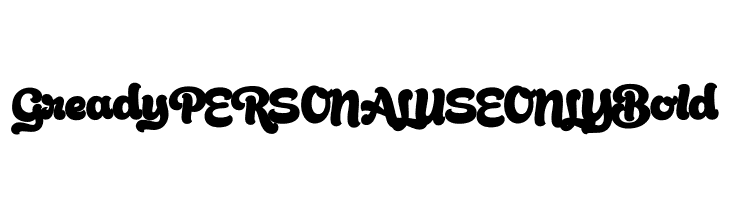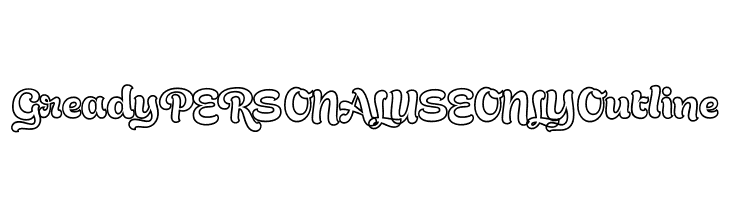
An elegant and decorative script font with ornate letterforms.
A playful and bold script font with a whimsical, hand-drawn style.
A bold, playful script font with rounded, flowing characters.
A playful, bold outline font with whimsical curves and rounded edges.
A bold, playful font with rounded, bubbly strokes and a whimsical style.
A dynamic and expressive handwritten font with fluid, cursive strokes.
An elegant and bold script font with ornate, flowing letterforms.
An elegant script font with flowing, ornate characters and intricate flourishes.
A sophisticated script font with elegant loops and swashes.
An elegant, bold, and italic script font with intricate loops and swirls.